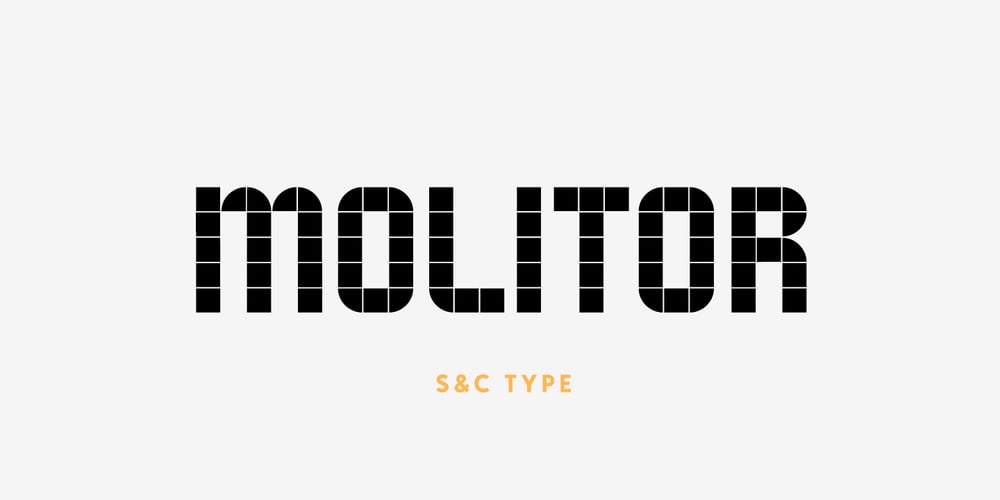
Molitor
Molitor font
Molitor Font Family was designed by Fanny Coulez and published by S&C Type. Molitor contains 3 styles and family package options. Molitor is a font inspired by mosaic patterns, we wanted a geometric elegance, between modernity and craftmanship. You will find two variations: rounded version for softness and fluidity straight version for clean and structured look With its versatility and bold characters, Molitor adapts to various contexts, from urban signage to restaurant menus or creative branding.Hope you will enjoy our work :)Instagram: sc.typeMerci beaucoup!